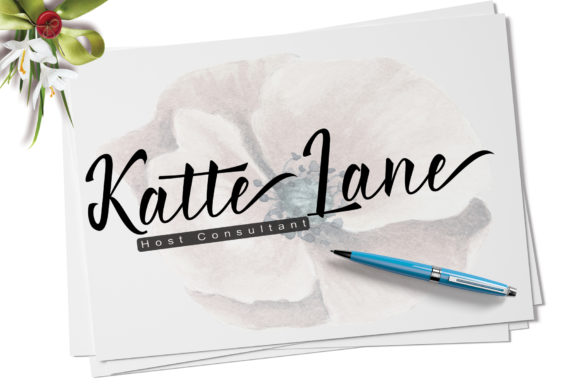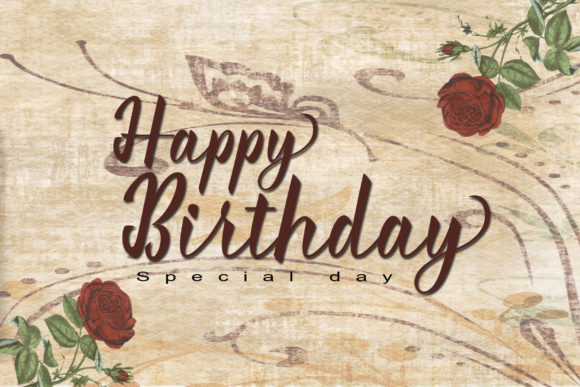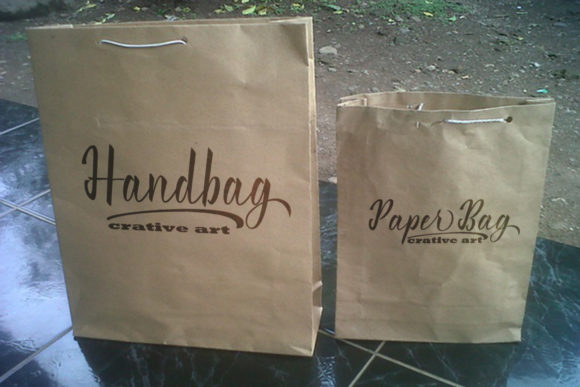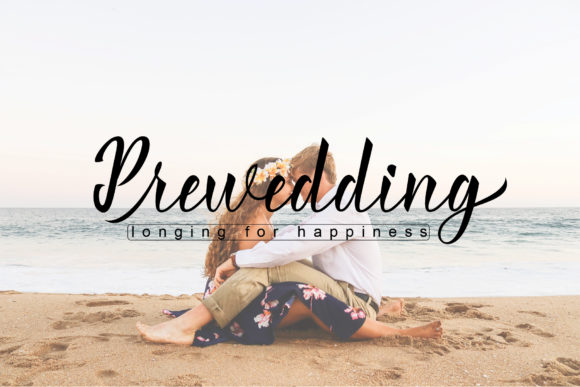
Introduction to Rautter Font
Have you ever found yourself staring at a blank canvas, feeling stuck and unsure of where to begin your next creative project? It’s a familiar feeling for many designers, but sometimes all it takes is the right design resource to spark inspiration. For those looking to add a touch of elegance and sophistication to their work, the Rautter Font is an excellent choice.
This high-quality script font is perfect for creating visually appealing headings, logos, and even wedding invitations. Its unique design makes it stand out from the crowd, while its transparent background ensures that it blends seamlessly with any background image or color.
Key Features of Rautter Font
- High-quality, elegant design perfect for creative projects and presentations.
- Transparent background, allowing for seamless integration with any background image or color.
- Unique characteristics include a mix of modern and classic elements, making it suitable for a wide range of design applications.
Honest Review: Rautter Font
I recently came across the Rautter Font and I must say it’s a great addition to any designer’s toolkit. The Rautter Font is a high-quality, versatile font that’s perfect for any creative project.
What works well: ✨ The font’s transparent background makes it easy to use on any design, and the free download is a huge bonus for designers on a budget. The font’s clean design also makes it a great choice for titles, headings, and body text.
What doesn’t work well: ⚠️ The font’s limited character set may be a drawback for some designers. Additionally, the font’s style may not be suitable for all types of projects.
Overall impression: The Rautter Font is a great design resource that’s perfect for designers looking for a high-quality, free font. While it has some limitations, the font’s versatility and clean design make it a great addition to any designer’s toolkit.
Tips for Getting the Most Out of Rautter Font
To get the most out of the Rautter Font, use it in combination with other design elements to create a cohesive and visually appealing design. Experiment with different font sizes and colors to add emphasis and create a clear hierarchy of information.
The Rautter Font is perfect for use in a variety of creative projects, including graphic design, digital art, and marketing materials. Its high-quality design and transparent background make it a versatile and useful design resource for any project.